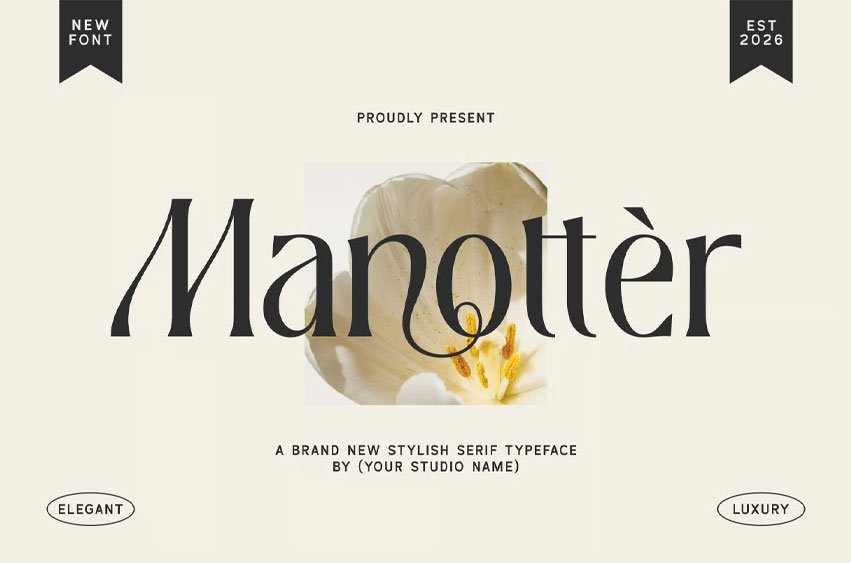
Manottèr Font Elevate your next creative project with Manottèr, a stylish and elegant serif font designed specifically for the premium market. Whether you are crafting high-end branding, sophisticated editorial layouts, or bespoke wedding invitations, Manottèr delivers a refined aesthetic that instantly captivates. Its gracefully balanced letterforms make it the perfect choice for luxury product packaging and premium stationery, giving your designs a timeless, high-fashion appeal.
Beyond its stunning visual impression, Manottèr is built to offer you complete creative freedom. The inclusion of beautifully crafted ligatures allows your typography to flow seamlessly, creating a bespoke, custom-tailored feel that is perfect for standout logos and editorial headlines. Paired with a versatile set of stylistic alternates, you can effortlessly tweak the personality of your text to perfectly match your client’s unique identity. Finally, with comprehensive multilingual support seamlessly integrated, your message will resonate beautifully across global markets. Boasting 263 meticulously drawn glyphs, Manottèr provides all the typographic tools you need to transform a simple canvas into an unforgettable luxury experience.
- Ligatures, Alternates